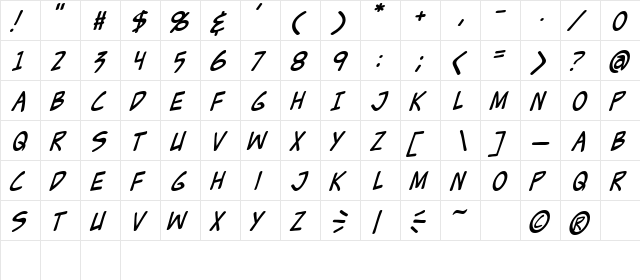
Zud Juice Italic Font Preview
Zud Juice Italic
Zud Juice Italic Font Details
Design Context for Zud Juice Typeface
Zud Juice is a composed and adaptable typeface that performs quietly and consistently across a wide range of design contexts. The slanted form adds forward momentum and visual energy.
Pro Tip: Use Zud Juice for emphasis, pull quotes, and subheadings where its slanted energy can add rhythm to the layout.